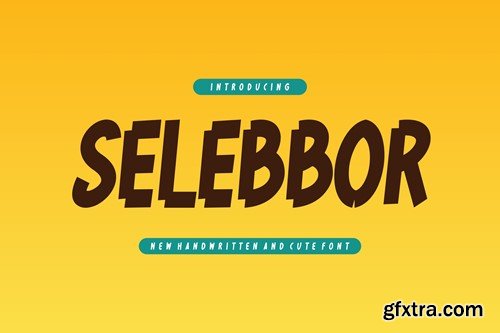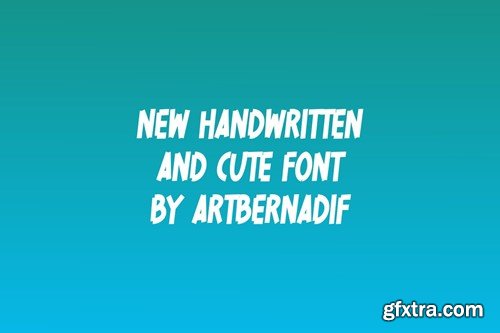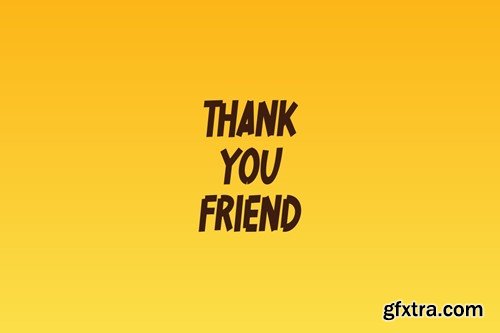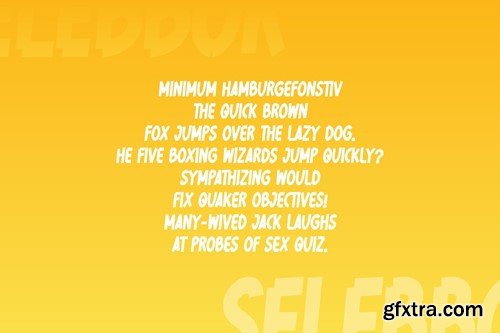
Selebbor Font N9DM8F7
Selebbor Font
Introducing our new product Selebbor Font - Modern Font Selebbor Font- Modern Font is a bold and authentic display font. The font is suitable for any branding project like logo, t-shirt printing, esport, and many more. outstanding in a wide range of contexts. availlable